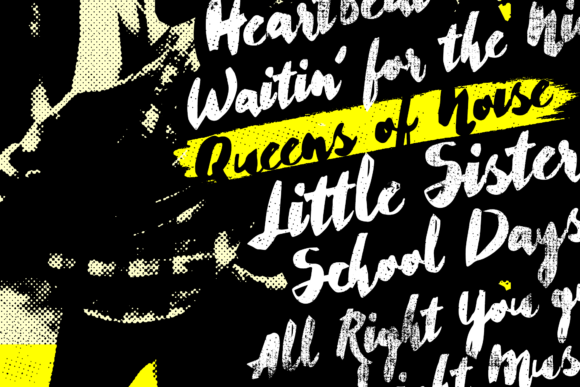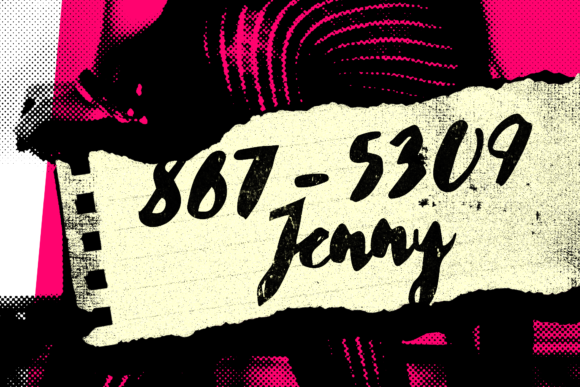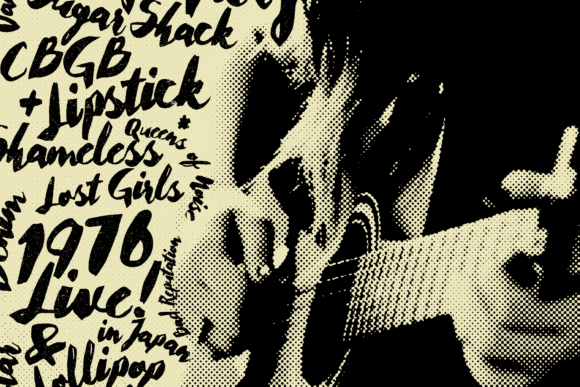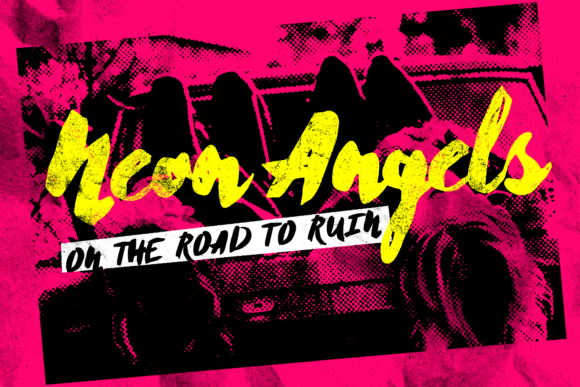
Introduction to Cherie Bomb Font
Have you ever been working on a creative project and stumbled upon that perfect font that makes all the difference? For me, it was a late-night design session when I finally found the Cherie Bomb Font. Its punk-rock vibe and handwritten feel instantly elevated my project, giving it the edge I was looking for.
As a designer, you know how valuable a good font can be. It’s the difference between a design that’s just okay and one that truly stands out. That’s why I’m excited to share the Cherie Bomb Font with you. This beautiful handmade brush font is not only free to download, but it’s also a high-quality design resource that’s perfect for any creative project.
Key Features of Cherie Bomb Font
- The Cherie Bomb Font is a high-quality design resource ideal for creative projects requiring a unique touch.
- This font features a transparent background, allowing for seamless integration into various design elements.
- The font size is scalable, allowing designers to adjust the size to suit their specific project needs.
- It has a resolution of 300 DPI, making it suitable for high-resolution print projects and digital applications.
- Its unique, playful design makes it an excellent choice for creative projects, such as logos, posters, and advertising materials.
Honest Review: Cherie Bomb Font
As a designer, I’m always on the lookout for high-quality design resources to elevate my creative projects. Recently, I came across the Cherie Bomb Font, and I’m excited to share my honest review.
What works well: ✨ The Cherie Bomb Font is a stunning addition to any design project. Its unique, hand-drawn style adds a touch of personality to any layout. I particularly love the fact that it comes with a transparent background, making it easy to use with any background color or image.
- High-quality design: The Cherie Bomb Font is beautifully crafted, with crisp lines and smooth curves.
What doesn’t work well: ⚠️ While the Cherie Bomb Font is generally well-designed, I do find that it can be a bit difficult to read at small font sizes. Additionally, the font family is relatively small, so you may need to use a combination of fonts to achieve the desired look.
Overall impression: I’m thoroughly impressed with the Cherie Bomb Font. Its unique style and high-quality design make it a valuable addition to any design project. While it may have some limitations, I believe it’s well worth using in your next creative project.
The Cherie Bomb Font is perfect for creative projects such as social media graphics, blog posts, and marketing materials. Its high-quality design and transparent background make it an excellent choice for presentations, documents, and digital art.
To get the most out of the Cherie Bomb Font, experiment with different font sizes, colors, and styles. Combine it with other design elements to create a unique and eye-catching visual effect. Don’t be afraid to try new things and push the boundaries of what’s possible with this versatile font.
What is the recommended font size for the Cherie Bomb Font?
The recommended font size for the Cherie Bomb Font is between 12-24 points, depending on the design context. For body text, we recommend using a font size of 14-18 points, while headings can be larger, up to 36 points or more. Experiment with different font sizes to find the best fit for your creative project.